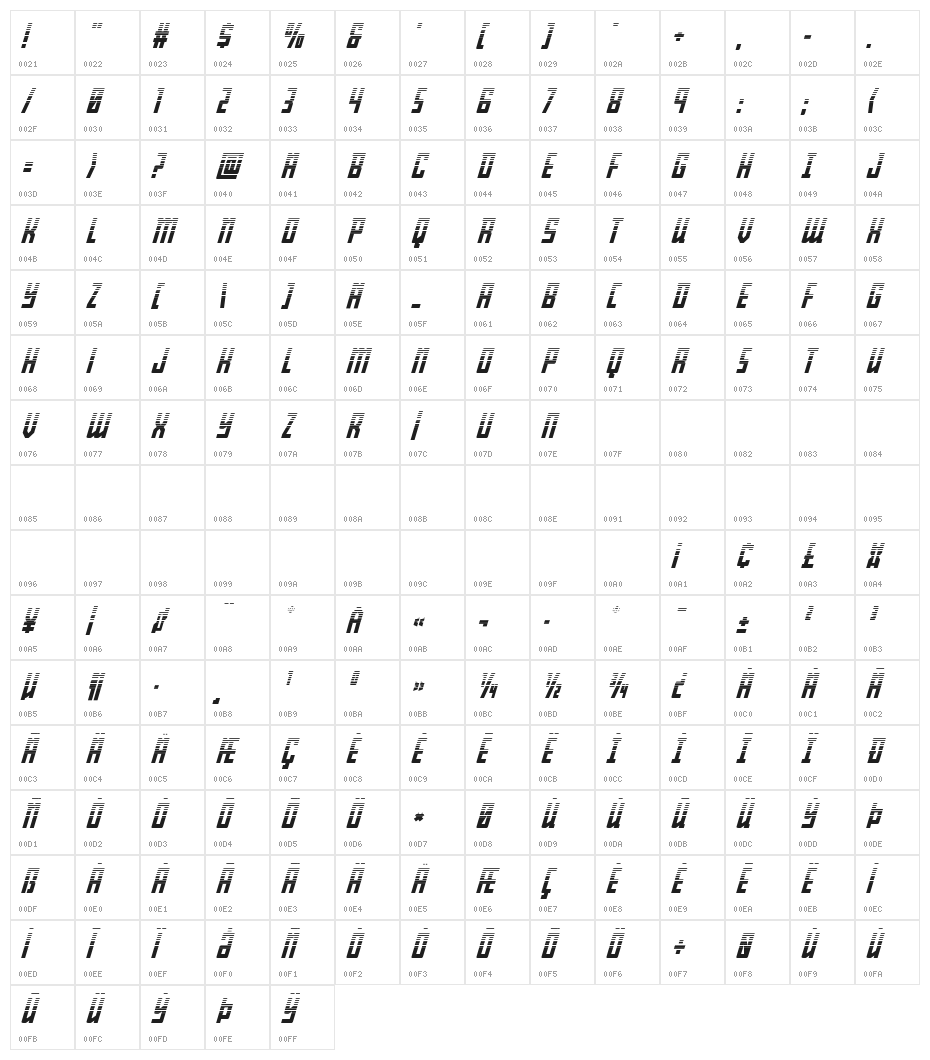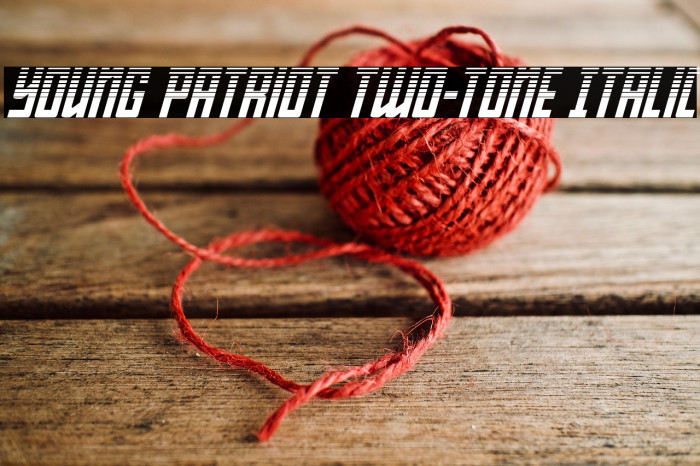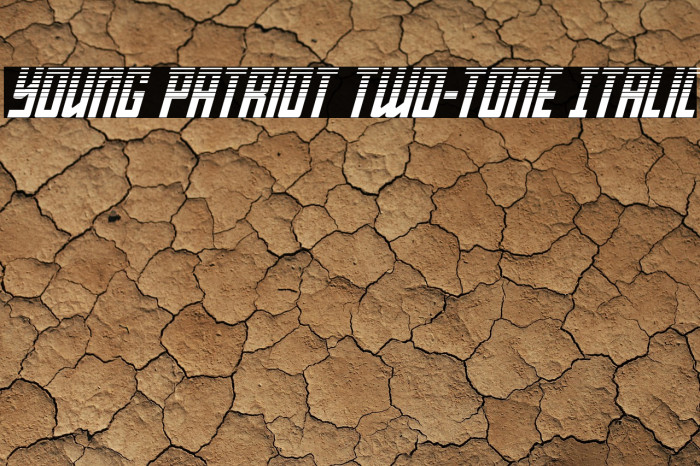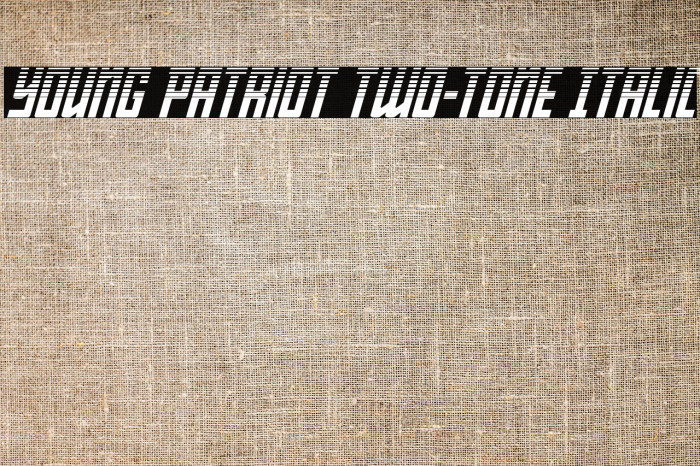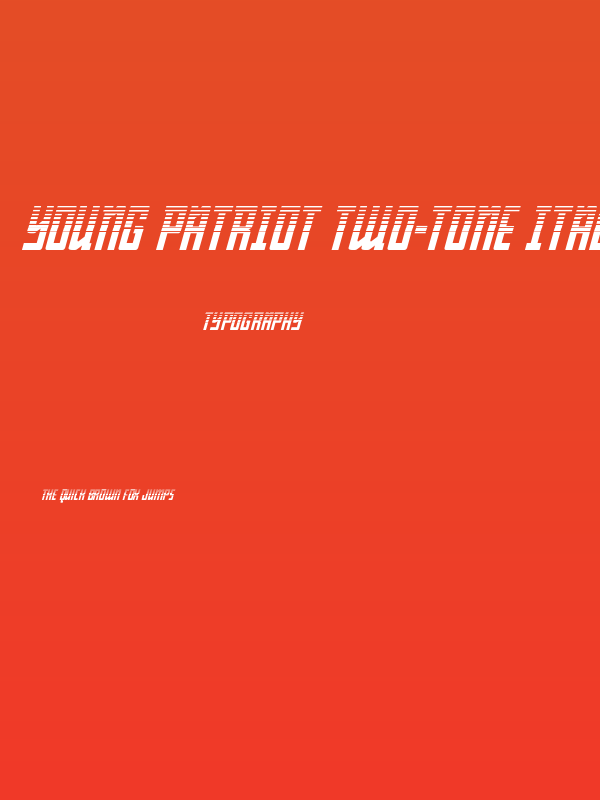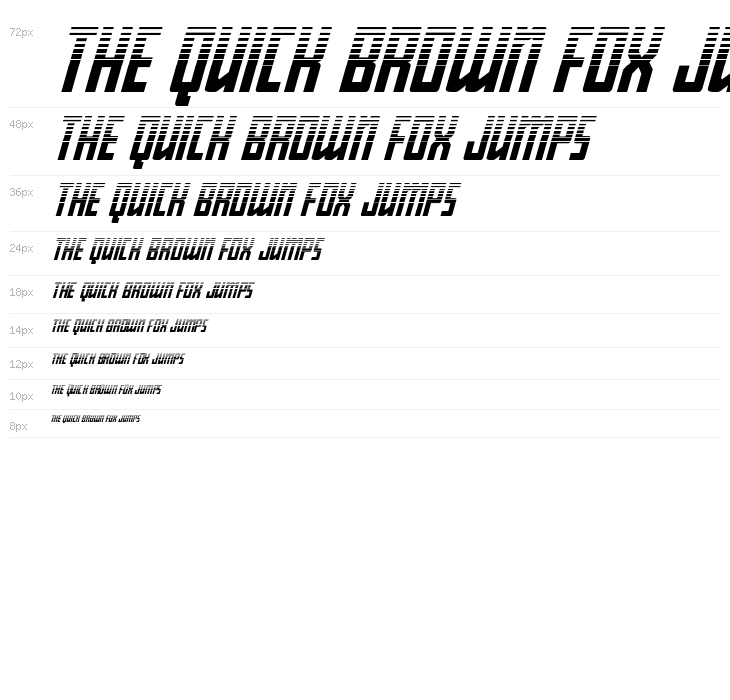
Young Patriot Two-Tone Italic Font
Young Patriot Two-Tone Italic Description
This font features a bold and dynamic design with a two-tone effect, giving it a striking and modern appearance. The characters are italicized, adding a sense of motion and energy. The uppercase and lowercase letters are consistent in style, with sharp angles and a futuristic feel. The numbers and special characters maintain the same aesthetic, ensuring a cohesive look across all text. The font's unique design makes it stand out, suitable for projects that require a bold statement.
| Proposed Projects | Ideal for sports branding, futuristic designs, posters, and headlines that need a bold and energetic look. |